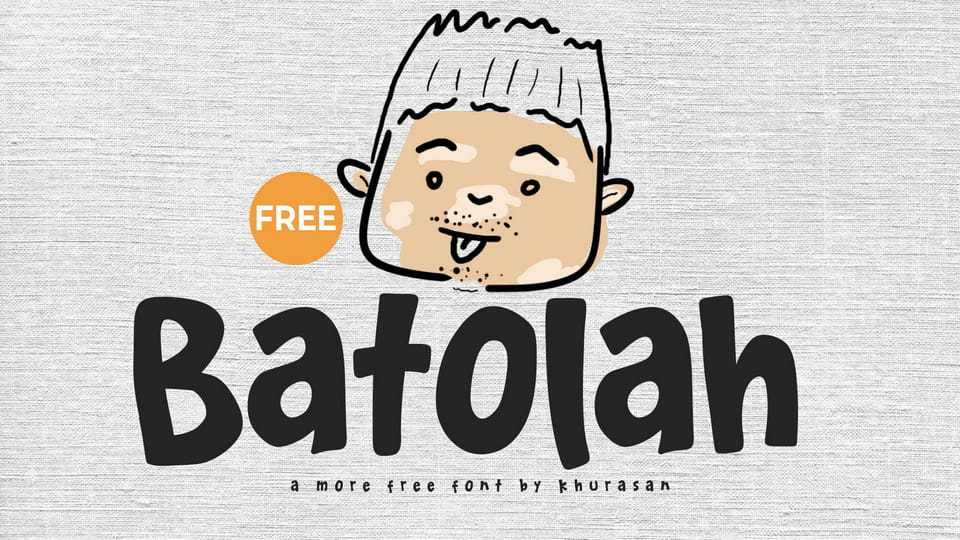
Download Batolah font, a rounded display typeface with a soft, hand-drawn aesthetic and charming character. Its smooth curves and slightly uneven shapes create a warm and approachable feel.